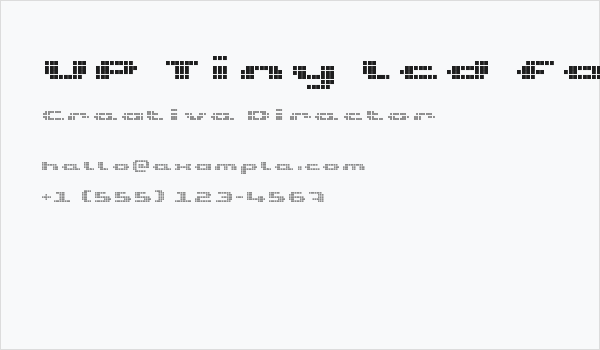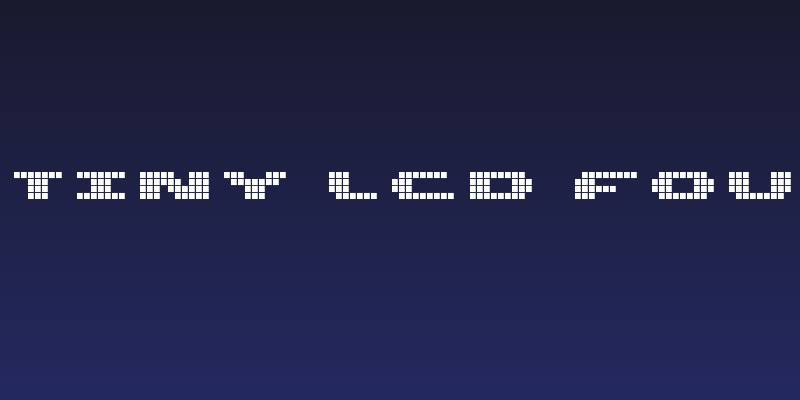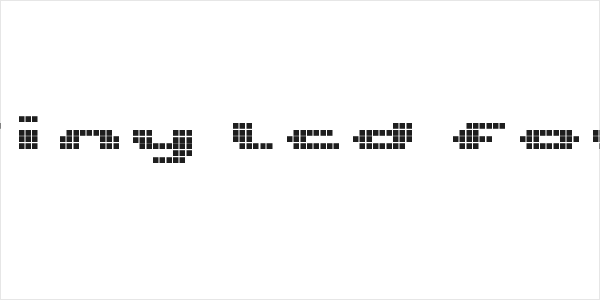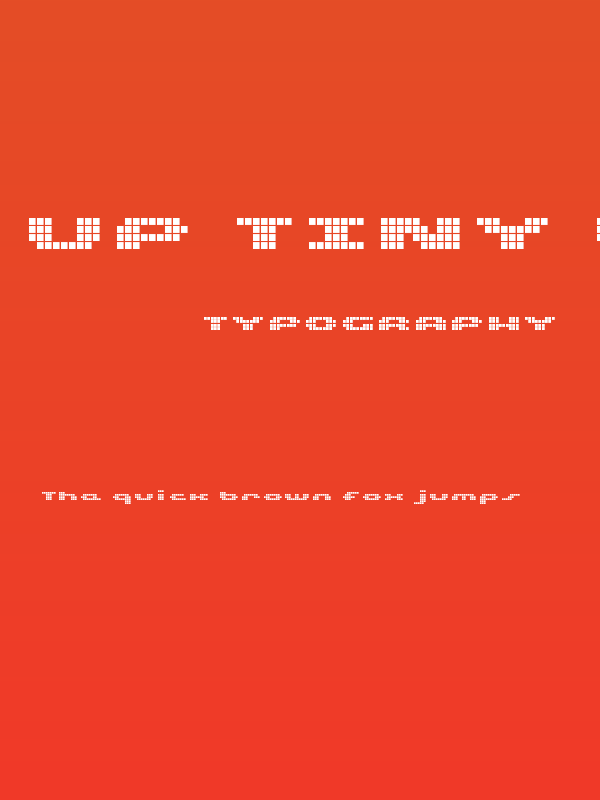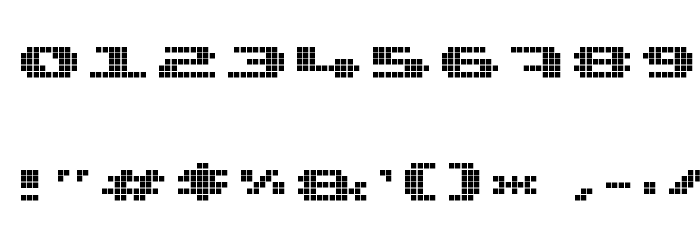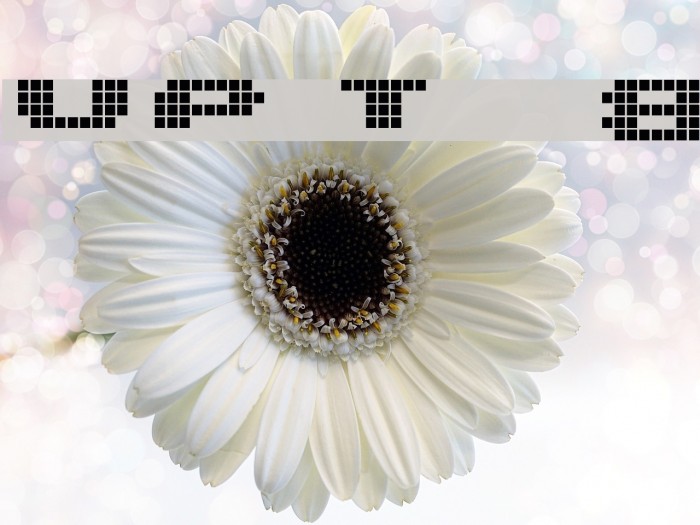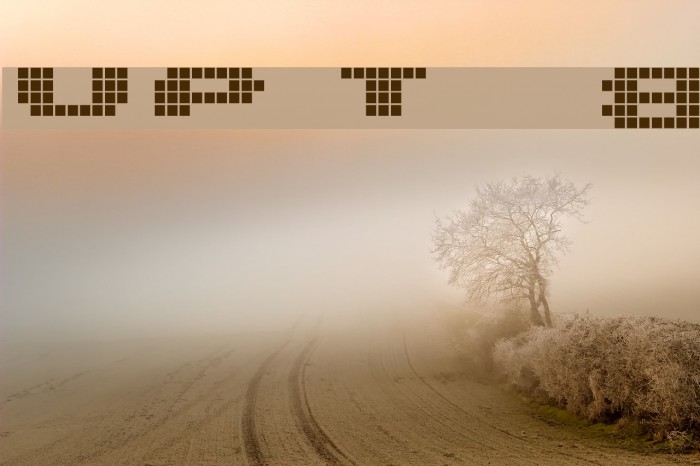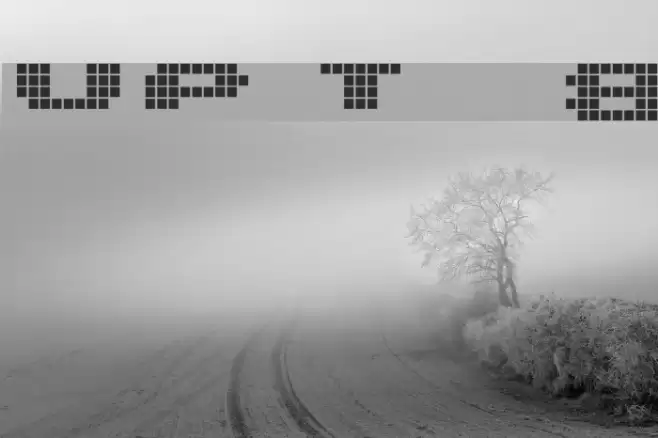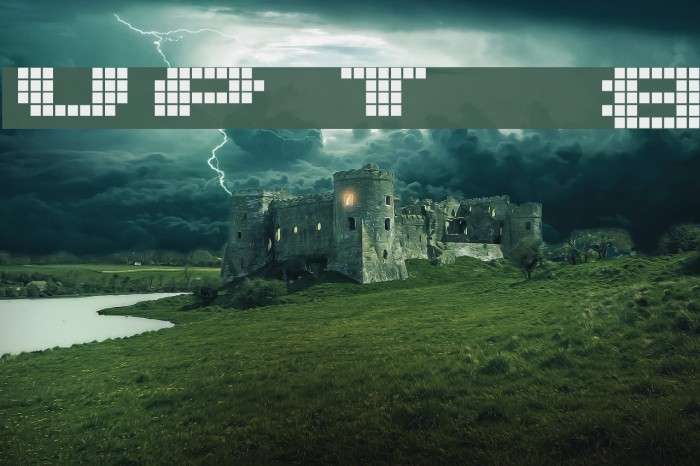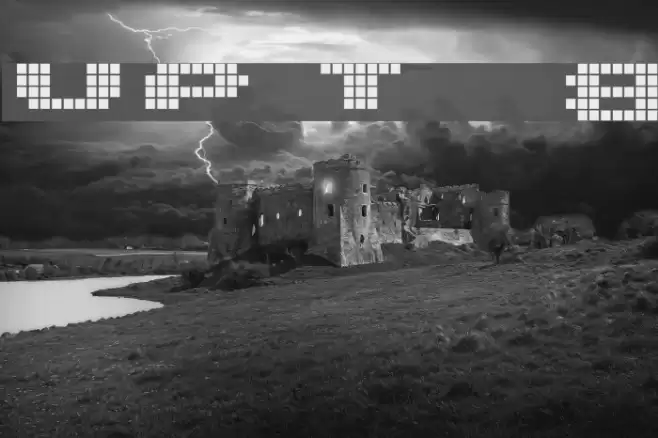
UP Tiny lcd four 8 Font
UP Tiny lcd four 8 Description
This font features a pixelated, digital appearance reminiscent of early LCD displays. Each character is constructed from a grid of small squares, giving it a distinctly retro and technological feel. The design is uniform across all characters, maintaining a consistent height and width, which enhances its readability in digital formats. The uppercase and lowercase letters are clearly distinguishable, and the numbers and special characters are crafted with the same pixelated style. This font is ideal for projects that aim to evoke a sense of nostalgia or a digital, tech-oriented theme.
| Overall Style | Retro, Digital |
| Use Case | Headlines, Logos, Digital interfaces |
| Proposed Projects | Ideal for retro-themed designs, digital art, tech-related branding, and video game interfaces. |